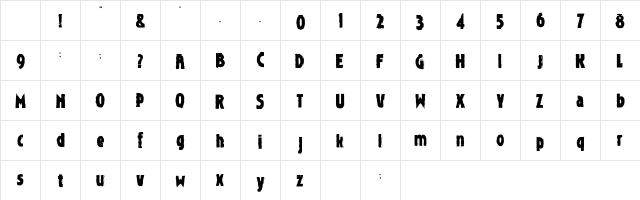
2Peas Samantha 2Peas Samantha Free Font
Design Context for 2Peas Samantha
2Peas Samantha is a composed and adaptable typeface that performs quietly and consistently across a wide range of design contexts.
Pro Tip: Use 2Peas Samantha in both headline and body roles to test its range before committing to a single application.